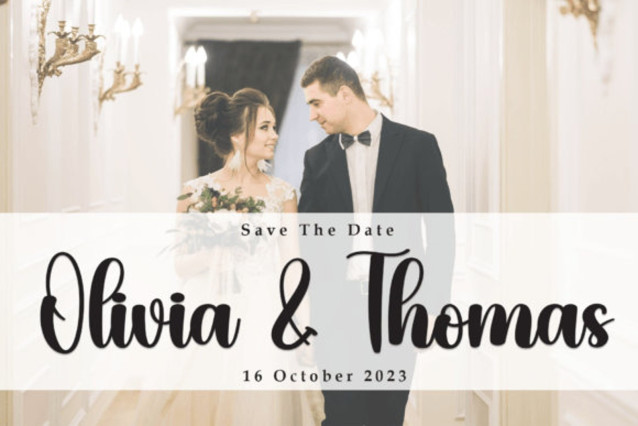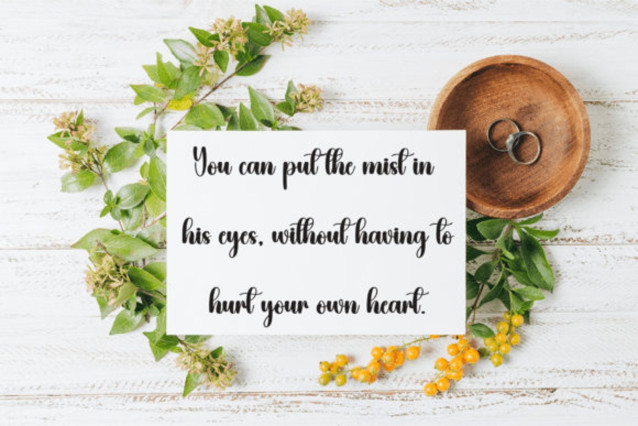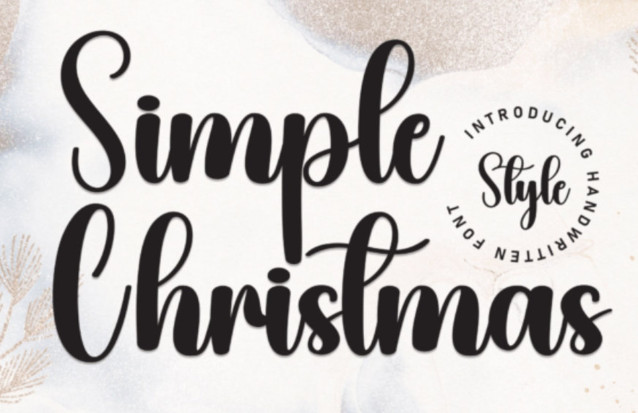
Simple Christmas Typeface
Simple Christmas Typeface is a delightful handwritten font that captures the essence of the holiday season with its warm and whimsical charm. With a graceful flow and a touch of festive flair, each character is crafted with care, making it perfect for adding a personal and heartwarming touch to your Christmas greetings, invitations, and festive projects. Embrace the spirit of simplicity and joy with Simple Chriistmas font, bringing a touch of handmade warmth to your holiday creations.